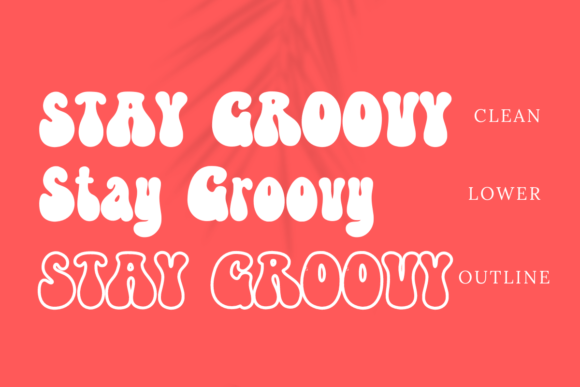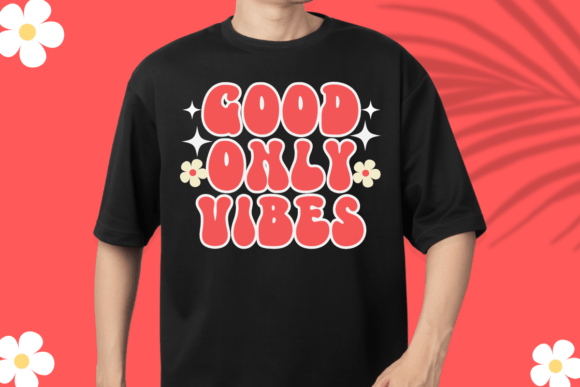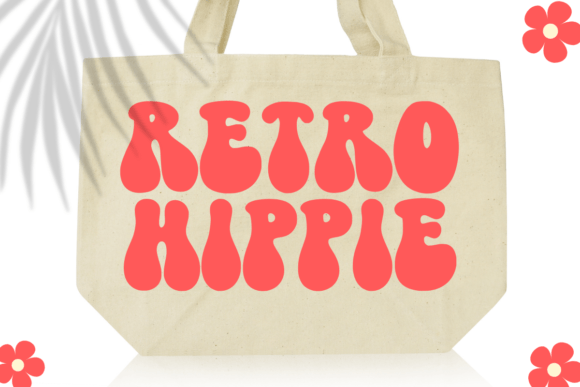
Introduction to Kenbie Groovy Font
Remember that moment when you’re brainstorming ideas for a new project, and you stumble upon the perfect font to give it that extra oomph? That’s exactly what happened when designers discovered the Kenbie Groovy Font. This playful, groovy font is a game-changer for anyone looking to add a fun, cheery accent to their designs.
As a valuable design resource, Kenbie Groovy Font is perfect for book covers, posters, packaging, merchandise, and more. With its high-quality aesthetic, it’s no wonder designers are flocking to this font for their creative projects. Plus, with a transparent background, it’s easy to integrate into any design.
Key Features of Kenbie Groovy Font
- The Kenbie Groovy Font is a high-quality design resource ideal for creative projects.
- Its unique, groovy design makes it perfect for creating eye-catching and memorable designs for various creative projects.
Honest Review: Kenbie Groovy Font
I recently stumbled upon the Kenbie Groovy Font, and I must say it’s been a game-changer for my creative projects. As a designer, I’m always on the lookout for high-quality design resources that can elevate my work. The Kenbie Groovy Font definitely delivers.
- ✨ Unique style: The font’s retro vibe is perfect for adding a touch of nostalgia to my designs.
- ✨ High-quality glyphs: The font’s glyphs are crisp and well-designed, making it perfect for both print and digital projects.
One thing I wish was different is the lack of support for transparent backgrounds. As a designer, I often work with images that require a transparent background, and this can be a bit of a limitation.
Overall, I’m thoroughly impressed with the Kenbie Groovy Font. Its unique style and high-quality glyphs make it a valuable addition to any designer’s toolkit. While it may not be perfect, its free download and retro vibe make it a great resource for any creative project.
The Kenbie Groovy Font is perfect for creating eye-catching graphics for social media, posters, and flyers. Its unique design makes it ideal for use in creative projects that require a touch of retro flair. With a transparent background, you can easily overlay the font on top of images or use it as a standalone design element.